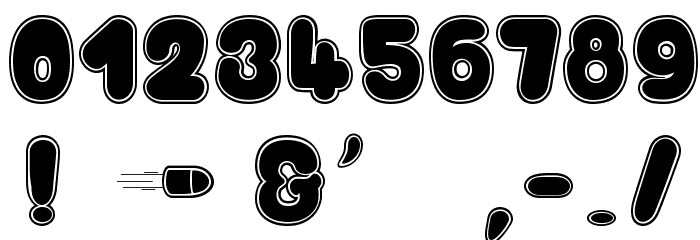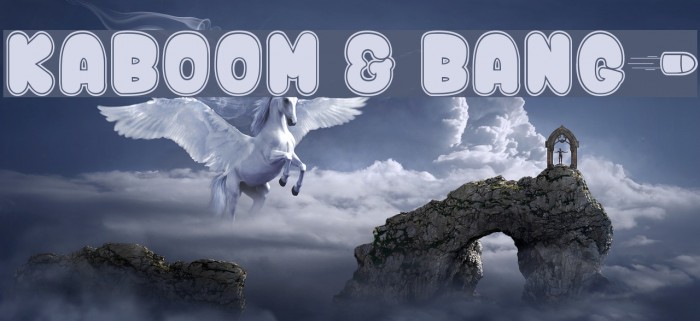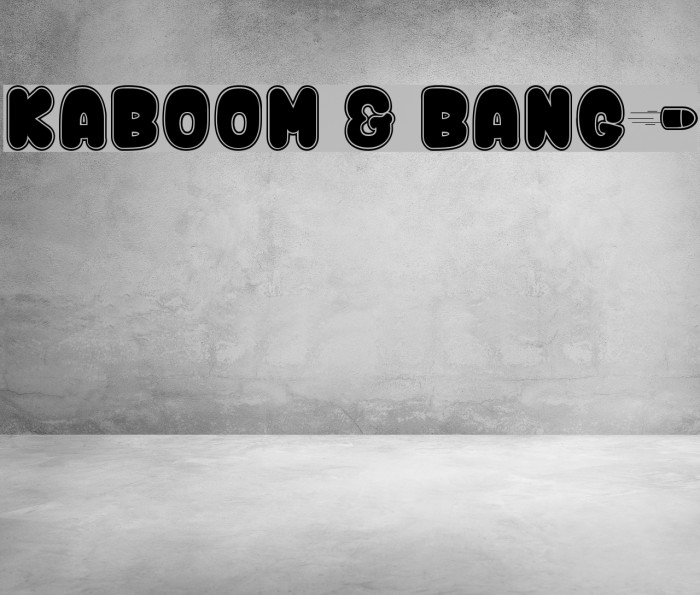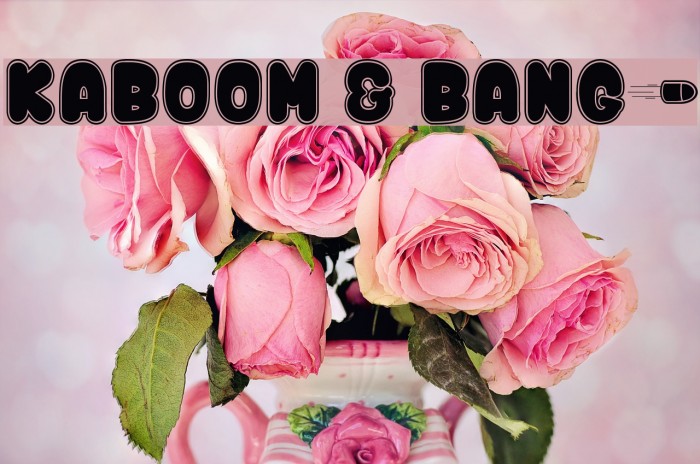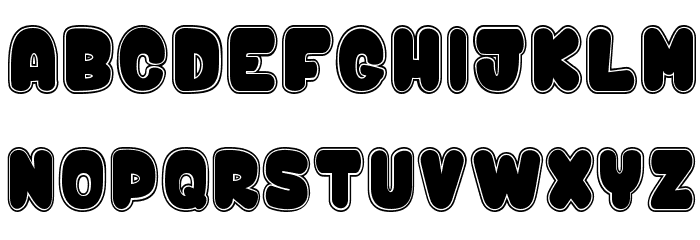
Kaboom & Bang$ Font
Kaboom & Bang$ Description
This font features bold, rounded characters with a playful and energetic style. Each letter is outlined with a thick black border, giving it a cartoonish and impactful appearance. The characters are uniformly bold, with a consistent stroke width that adds to their visual weight. The font includes both uppercase and lowercase letters, numbers, and a selection of special characters, all maintaining the same bubbly and dynamic aesthetic. The overall look is reminiscent of comic book lettering, making it ideal for projects that require a fun and lively touch.
| Overall Style | Playful, Cartoonish |
| Proposed Projects | Perfect for comic books, children's books, playful branding, and eye-catching posters. |